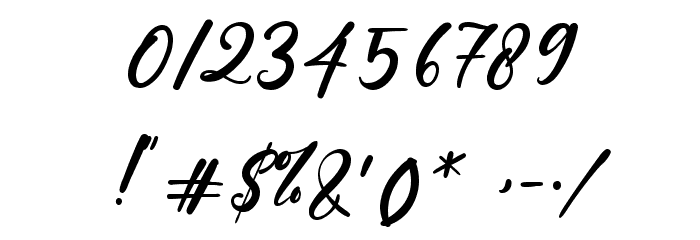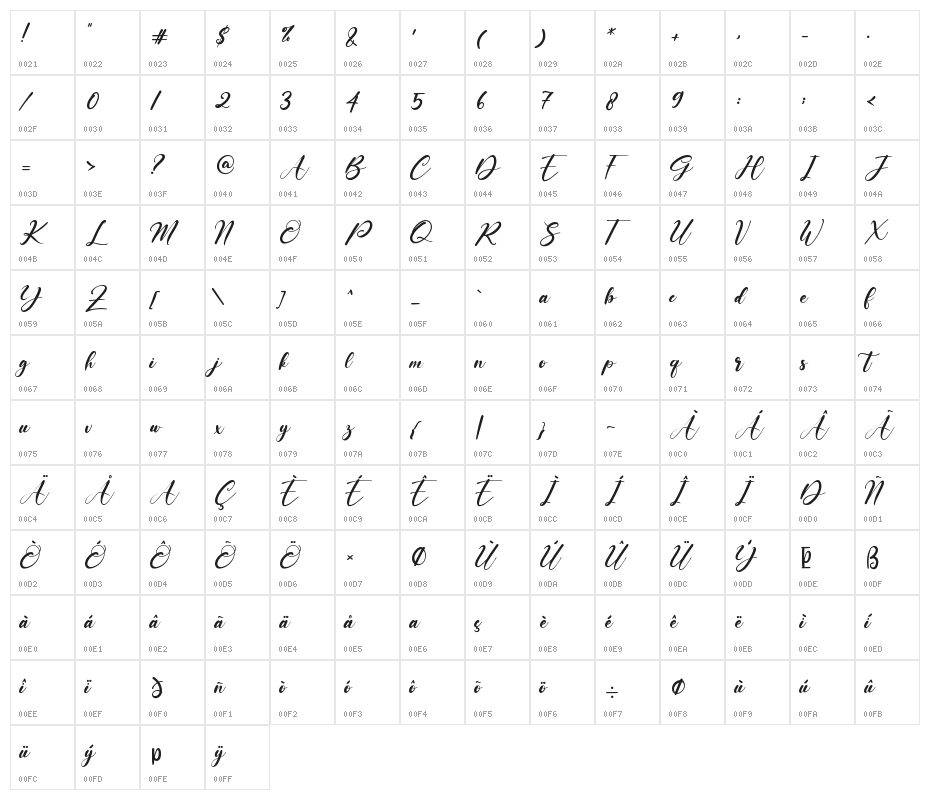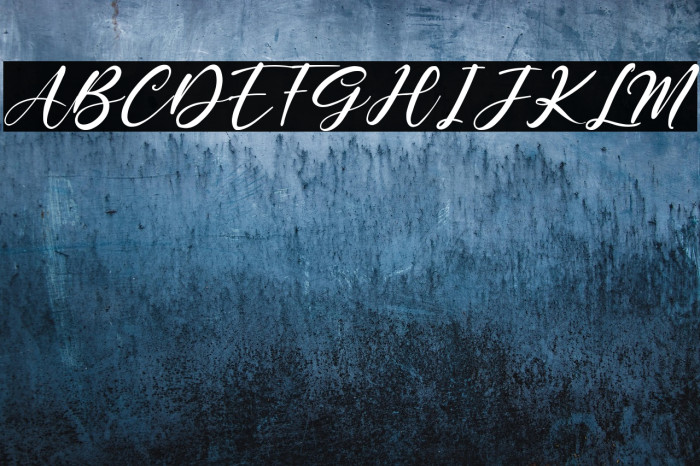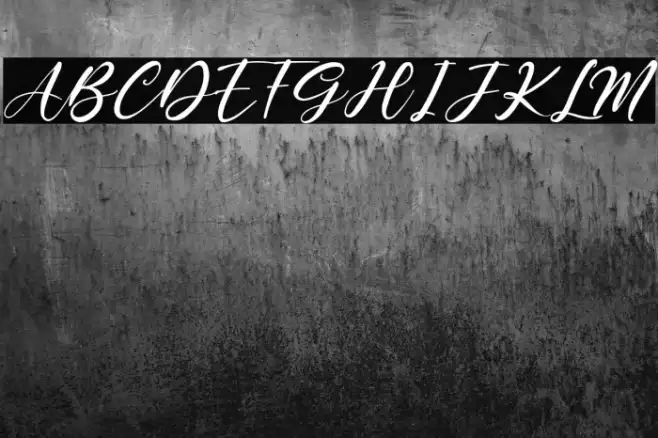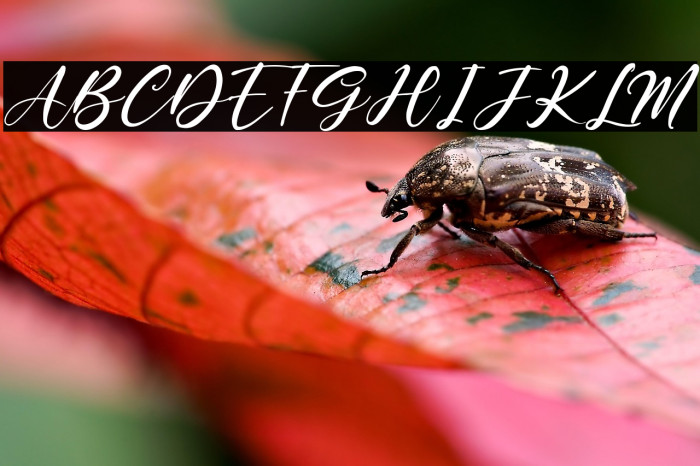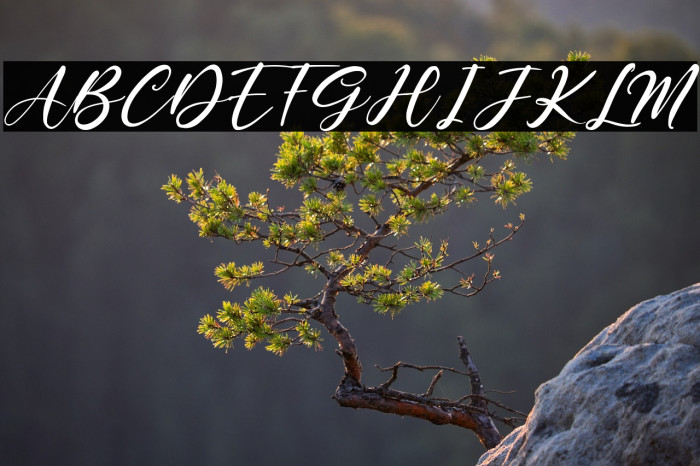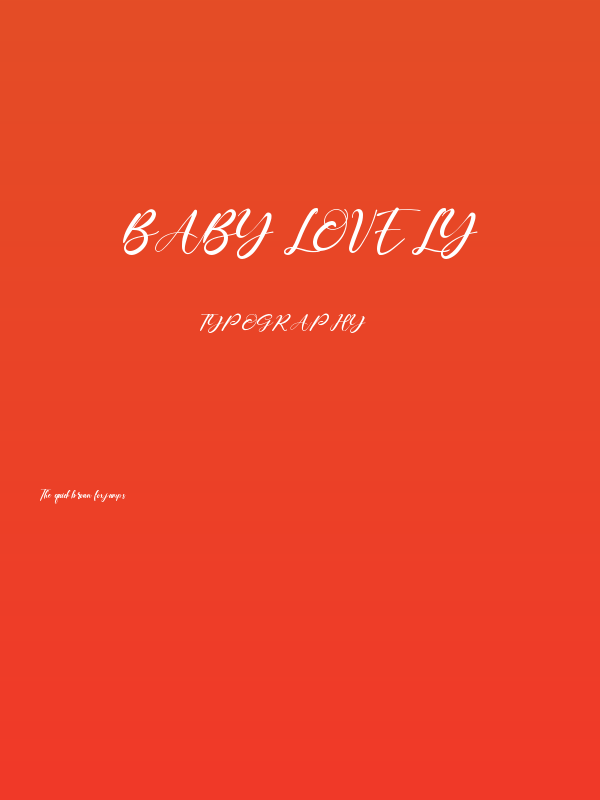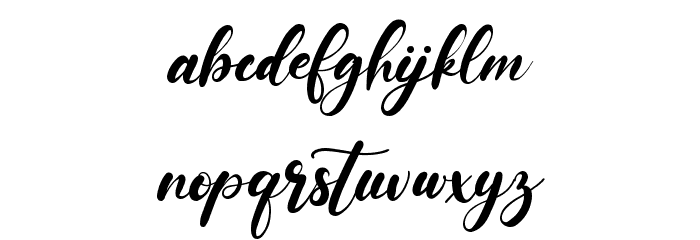
Baby Lovely Font
Baby Lovely Description
This font features an elegant, flowing script style that mimics the fluidity of handwriting. The uppercase letters are bold and sweeping, with intricate loops and flourishes that add a touch of sophistication. The lowercase letters maintain a consistent style, with smooth curves and a slightly slanted orientation, enhancing the handwritten feel. The numerals are well-integrated, maintaining the same decorative flair as the alphabet. Special characters are crafted with the same attention to detail, ensuring a cohesive look across all glyphs. The overall design is both stylish and legible, making it suitable for a variety of creative applications.